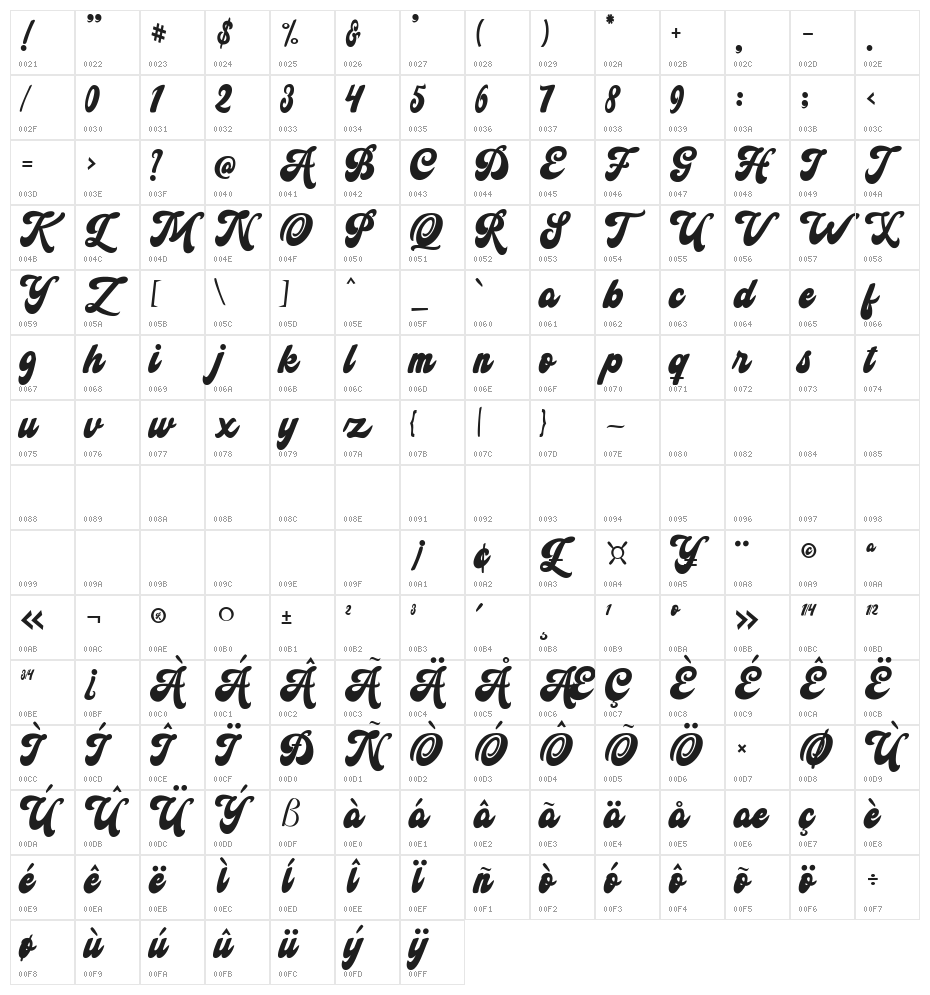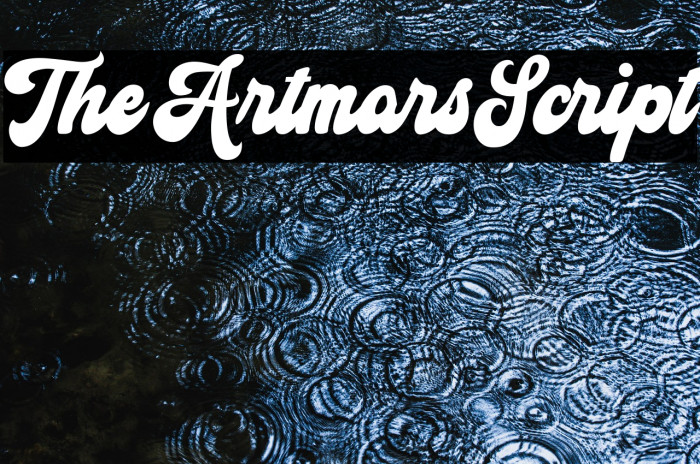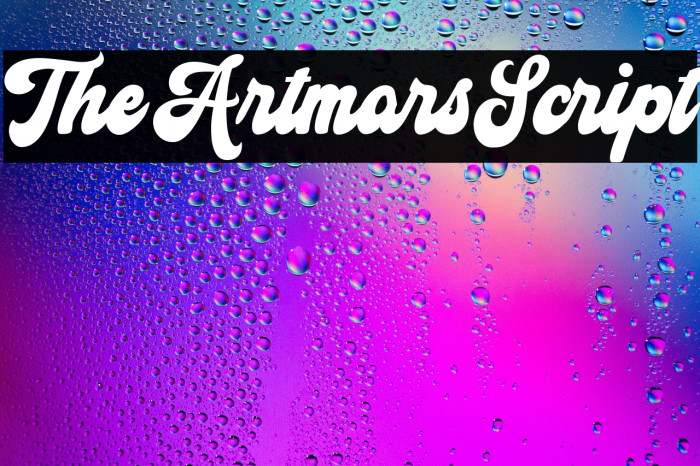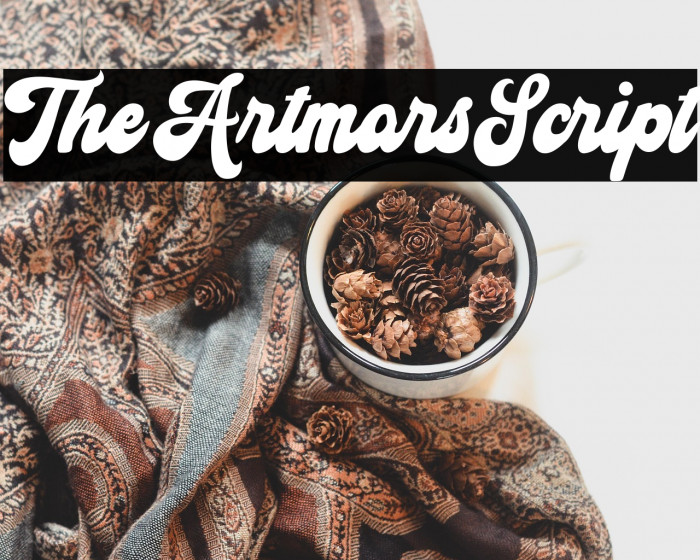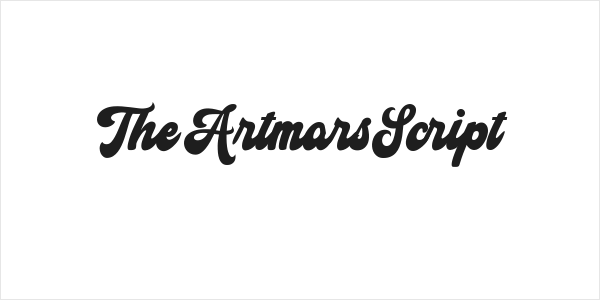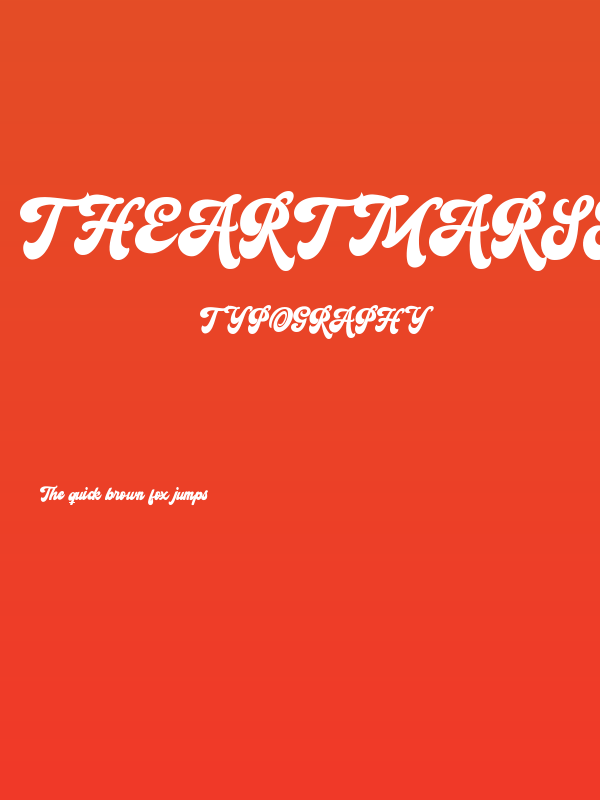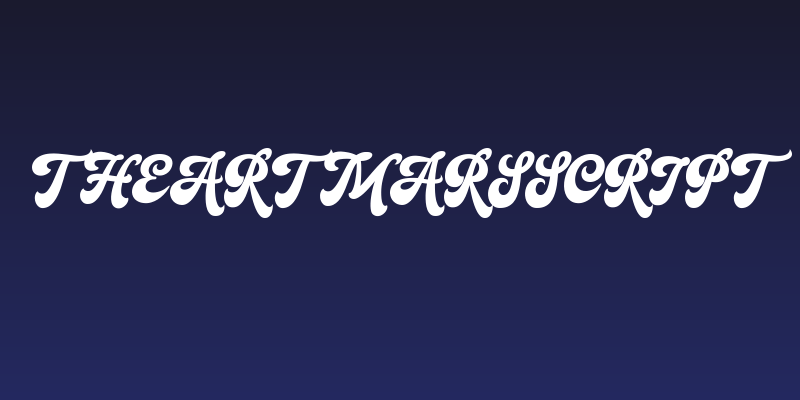
TheArtmarsScript Font
TheArtmarsScript Description
This font features a bold and flowing script style, characterized by its thick, rounded strokes and smooth, continuous lines. The uppercase letters are elegantly designed with a slight slant, giving them a dynamic and lively appearance. The lowercase letters maintain a consistent flow, enhancing readability while retaining a stylish flair. Numbers and special characters are crafted with the same boldness, ensuring uniformity across all elements. The overall design exudes a sense of modern elegance, making it suitable for a variety of creative applications.